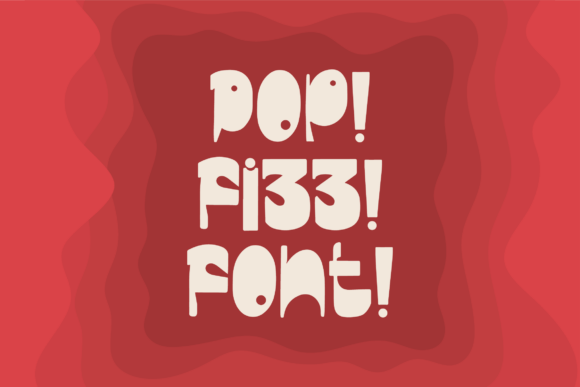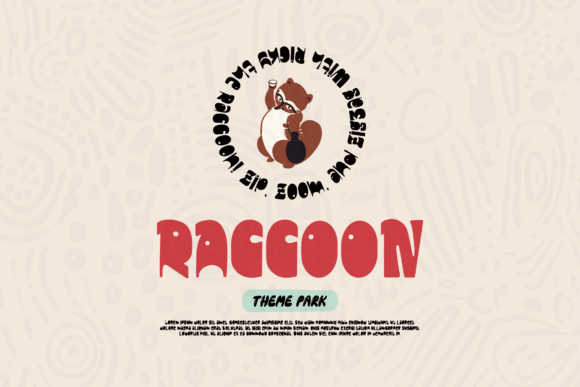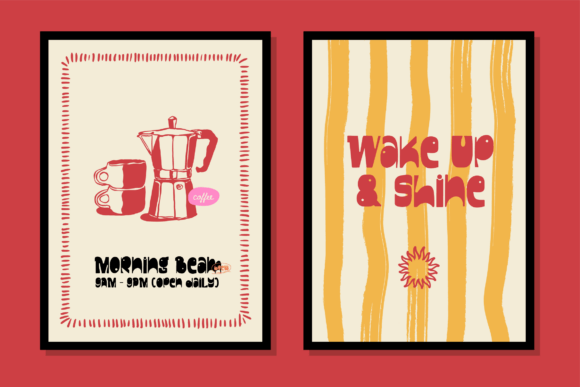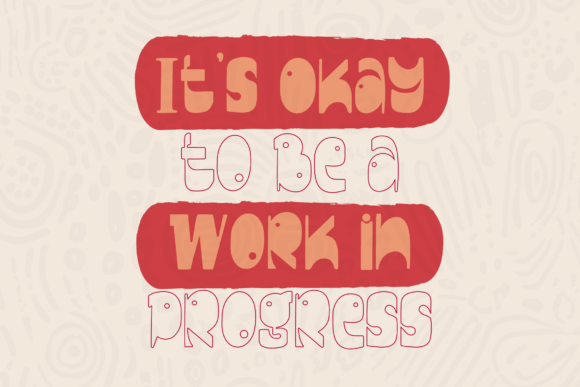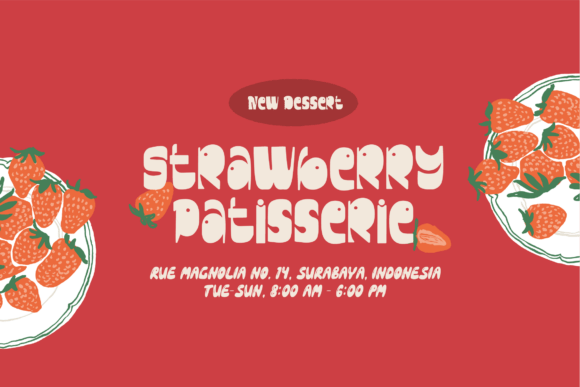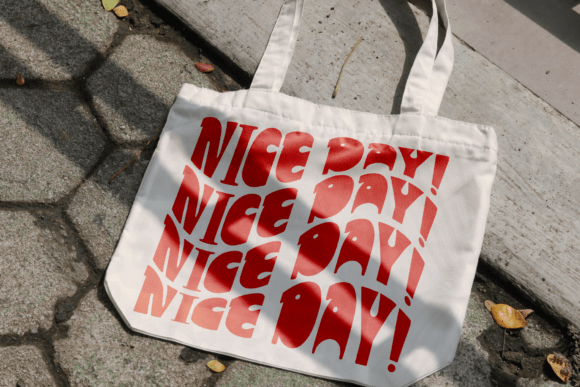
Introducing Dotcha Rounde Font: The Ultimate Choice for Joyful and Playful Designs
Are you tired of using the same old fonts for your designs? Look no further than Dotcha Rounde, a bold and bouncy hand-drawn font that’s sure to bring a smile to your face. With its bubbly, organic shapes and playful curves, this delightful font is perfect for adding a touch of whimsy to any project.
A Retro Flair with a Modern Twist
Dotcha Rounde’s unique design combines the best of both worlds: a retro flair that’s reminiscent of classic children’s books and a modern twist that keeps it fresh and exciting. The font’s rounded shapes and smooth curves give it a friendly and approachable feel, making it ideal for designs that need to appeal to a younger audience.
So, what can you use Dotcha Rounde for? The possibilities are endless! Here are just a few ideas to get you started:
- Children’s books: Dotcha Rounde is a natural fit for kids’ books, with its playful and imaginative vibe that’s sure to capture young readers’ attention.
- Party invitations: Add a touch of fun and excitement to your party invites with Dotcha Rounde’s bouncy and energetic design.
- Product packaging: Stand out on store shelves with Dotcha Rounde’s unique and eye-catching style, perfect for packaging design.
- Quirky branding: If your brand has a playful personality, Dotcha Rounde is the perfect fit. Use it to add a touch of whimsy to your logo, website, or marketing materials.
Flexible and Versatile: Regular and Italic Styles
Dotcha Rounde comes in two styles: Regular and Italic. This means you can use the font in a variety of contexts, from headlines to body text, and still maintain a consistent look and feel. The Regular style is perfect for bold statements, while the Italic style adds a touch of elegance and sophistication.
Why Choose Dotcha Rounde?
So, what sets Dotcha Rounde apart from other fonts? Here are just a few reasons why designers and crafters love this delightful font:
- Unique and eye-catching design: Dotcha Rounde’s bubbly, organic shapes and playful curves make it a standout font that’s sure to grab attention.
- Flexible and versatile: With Regular and Italic styles, you can use Dotcha Rounde in a variety of contexts and still maintain a consistent look and feel.
- Perfect for a younger audience: Dotcha Rounde’s playful and imaginative vibe makes it a natural fit for designs that need to appeal to kids or young adults.
Get Creative with Dotcha Rounde!
Ready to let your creativity go wild with Dotcha Rounde? Here are a few tips to get you started:
- Experiment with different colors: Dotcha Rounde looks great in bright, bold colors. Try pairing it with a fun background or using it in a colorful design.
- Mix and match with other fonts: Dotcha Rounde pairs well with a variety of fonts. Try combining it with a serif font for a fun and playful look.
- Use it in a variety of contexts: Dotcha Rounde is versatile enough to use in a variety of contexts, from digital designs to print materials.